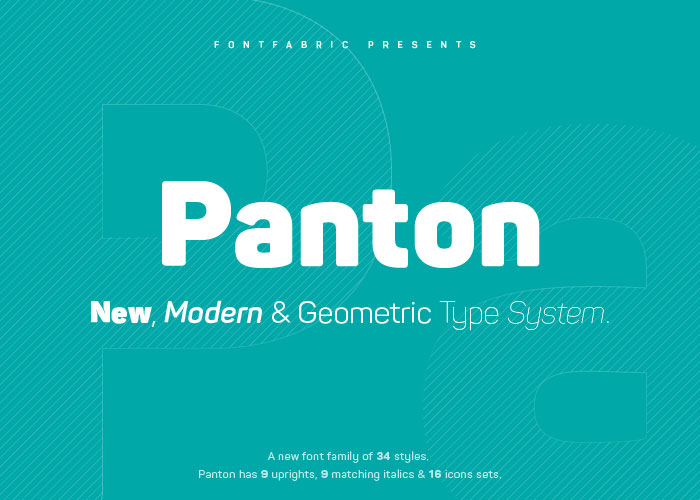
Panton Free Modern Geometric Font – Download Grátis
Panton font is characterized by amazing legibility in both web & print design areas, awesome geometric designs, and optimized kerning. It is most suitable for headlines of all sizes, text blocks that come in both maximum and minimum variations. You can use Panton font styles for any type of design like web, print, motion graphics, etc. It’s also perfect for t-shirts, posters, and logos. The font is available in 34 weights – 9 uprights with 9 italics and 16 icon sets as a bonus. Thanks to Font Fabric for sharing this great font. Check his portfolio for more fonts.